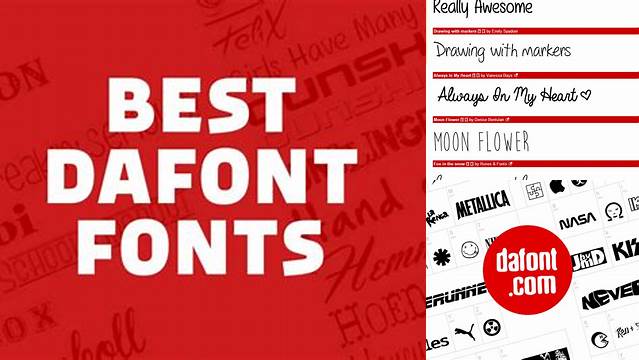
Best DaFont Fonts: Top Reddit Picks For Designers
Are you looking to spice up your design projects with some unique and eye-catching fonts? Well, you've come to the right place, guys! The world of typography is vast and varied, but sometimes the sheer volume of choices can be overwhelming. That's where resources like DaFont come in handy, offering a treasure trove of fonts, many of which are free for personal use. But with so many options, how do you find the real gems? That's where the Reddit community steps in! Reddit, the self-proclaimed "front page of the internet," is a fantastic place to discover recommendations and opinions on just about anything, including fonts. In this article, we'll be diving deep into the best DaFont fonts, according to Reddit users, exploring a range of styles and use cases to help you find the perfect typeface for your next project. Whether you're designing a logo, crafting a website, or just looking to add some flair to your personal projects, we've got you covered. So, let's jump in and explore the world of DaFont, as seen through the eyes of the Reddit community!
Why DaFont is a Go-To Resource for Font Lovers
DaFont has become a go-to resource for font enthusiasts and designers alike, and for good reason. This online platform boasts an extensive library of fonts, offering a diverse range of styles from elegant serifs to playful scripts and futuristic sans-serifs. The sheer variety available on DaFont is one of its biggest draws, making it a fantastic starting point for any project that requires unique typography. What truly sets DaFont apart, though, is its accessibility. A significant portion of the fonts available on the site are free for personal use, making it an invaluable resource for students, hobbyists, and anyone on a budget. This doesn't mean the quality is lacking, though. Many talented designers and typographers contribute to DaFont, offering high-quality fonts that can rival those found on paid platforms. Of course, it's always crucial to check the license agreement for each font before using it in a commercial project, as some fonts may require a license purchase for commercial use. Navigating DaFont is also incredibly user-friendly. The site's intuitive interface allows you to easily browse fonts by category, such as fancy, foreign look, techno, gothic, basic, script, and more. You can also preview how your text will look in a particular font, making it simple to experiment and find the perfect fit. DaFont's popularity within the Reddit community speaks volumes about its value. Redditors frequently share their favorite DaFont finds, discuss the best fonts for specific projects, and even create threads dedicated to identifying fonts used in logos or designs. This collaborative environment makes DaFont not just a font repository, but also a hub for inspiration and discovery. So, whether you're a seasoned designer or just starting out, DaFont offers a wealth of typographic possibilities, and the Reddit community is there to help you navigate it all.
Top DaFont Finds According to Reddit Users
Reddit users have a keen eye for unique and stylish fonts, and their recommendations for DaFont are a treasure trove of typographic inspiration. One recurring favorite that often pops up in Reddit discussions is Bebas Neue. This clean and modern sans-serif font is a versatile choice for headlines, logos, and body text, making it a staple in many designers' toolkits. Its readability and contemporary aesthetic make it a popular option for websites, posters, and branding materials. Another font that frequently receives praise on Reddit is Montserrat. Similar to Bebas Neue, Montserrat is a sans-serif typeface that exudes a sense of sophistication and clarity. Its geometric design and multiple weights make it adaptable to a wide range of design projects, from website headers to print layouts. Redditors often highlight Montserrat's excellent legibility, making it a reliable choice for body text as well. For those seeking a touch of elegance and personality, Great Vibes is a script font that often garners attention on Reddit. This flowing and graceful typeface is perfect for invitations, wedding designs, and anything that requires a touch of hand-lettered charm. Its delicate strokes and elegant curves add a touch of sophistication to any project. Of course, the best DaFont fonts for you will ultimately depend on your specific needs and aesthetic preferences. However, these Reddit-approved recommendations offer a fantastic starting point for your typographic journey. By exploring these fonts and delving into the discussions surrounding them on Reddit, you'll gain a better understanding of what makes a font truly stand out and how to effectively incorporate it into your designs. Remember to always check the font license before using it in a project, especially for commercial purposes.
How to Use DaFont Effectively for Your Projects
Beyond the Popular Choices: Discovering Hidden Gems
While popular fonts like Bebas Neue and Montserrat are reliable choices, DaFont is also a treasure trove of hidden gems waiting to be discovered. Venturing beyond the well-trodden path can lead you to unique and distinctive typefaces that will set your designs apart. One strategy for finding these hidden gems is to explore DaFont's categories beyond the most popular ones. Instead of just browsing the "Sans Serif" or "Script" sections, delve into categories like "Retro," "Grunge," or "Various." These categories often contain fonts with a more niche appeal, but they can be perfect for projects that require a specific aesthetic. Another approach is to use DaFont's filtering options to narrow down your search. For example, you can filter fonts based on specific characteristics like "Rounded," "Condensed," or "Handwritten." This allows you to target fonts that have a particular visual quality you're looking for. Don't overlook the "New Fonts" section either. DaFont is constantly updated with new additions, and you might just find a hidden gem among the latest uploads. Be sure to browse through the recent fonts to stay ahead of the curve and discover fresh typefaces that others haven't found yet. Engaging with the Reddit community can also be a great way to uncover hidden font gems. Redditors often share their favorite DaFont finds and discuss the best fonts for specific projects. Look for threads dedicated to typography or graphic design, and you're sure to find some valuable recommendations. When exploring DaFont, pay attention to the font designer's other creations as well. If you find a font you love, chances are the designer has created other fonts in a similar style that you might also find appealing. By digging deeper into a designer's portfolio, you can uncover a wealth of typographic options. Finally, don't be afraid to experiment and try out fonts that you wouldn't normally consider. You might be surprised at what you discover. The beauty of DaFont is its vast selection and accessibility, so take advantage of the opportunity to explore and find fonts that truly resonate with your creative vision.
Conclusion: Finding the Perfect Font for Your Needs
In conclusion, finding the perfect font for your needs involves a combination of exploration, understanding, and a bit of experimentation. DaFont, with its vast library of fonts, provides an excellent platform for this journey, and the Reddit community offers valuable insights and recommendations to guide you along the way. Remember to start by defining your project's goals and aesthetic. What message are you trying to convey? What emotions do you want to evoke? The answers to these questions will help you narrow down your font choices and select typefaces that align with your vision. Take advantage of DaFont's search and filtering options to explore different styles and categories. Don't be afraid to venture beyond the popular choices and discover hidden gems that will make your designs stand out. Always prioritize understanding font licensing. Ensure that you have the necessary permissions to use a font for your intended purpose, whether it's for personal or commercial projects. When in doubt, contact the font designer for clarification. Experiment with font combinations and pairings. Mixing different typefaces can add visual interest and hierarchy to your designs, but it's important to do so thoughtfully. A good approach is to pair a serif font with a sans-serif font, or to use different weights and styles within the same font family. Engage with the design community and seek inspiration from others. Platforms like Reddit are excellent resources for discovering new fonts and learning how to use them effectively. Pay attention to the discussions and recommendations shared by fellow designers and typographers. Ultimately, the best font for your project is the one that effectively communicates your message and enhances your design. By following these guidelines and embracing the creative process, you'll be well-equipped to navigate the world of typography and find the perfect fonts to bring your ideas to life. Happy designing, guys!